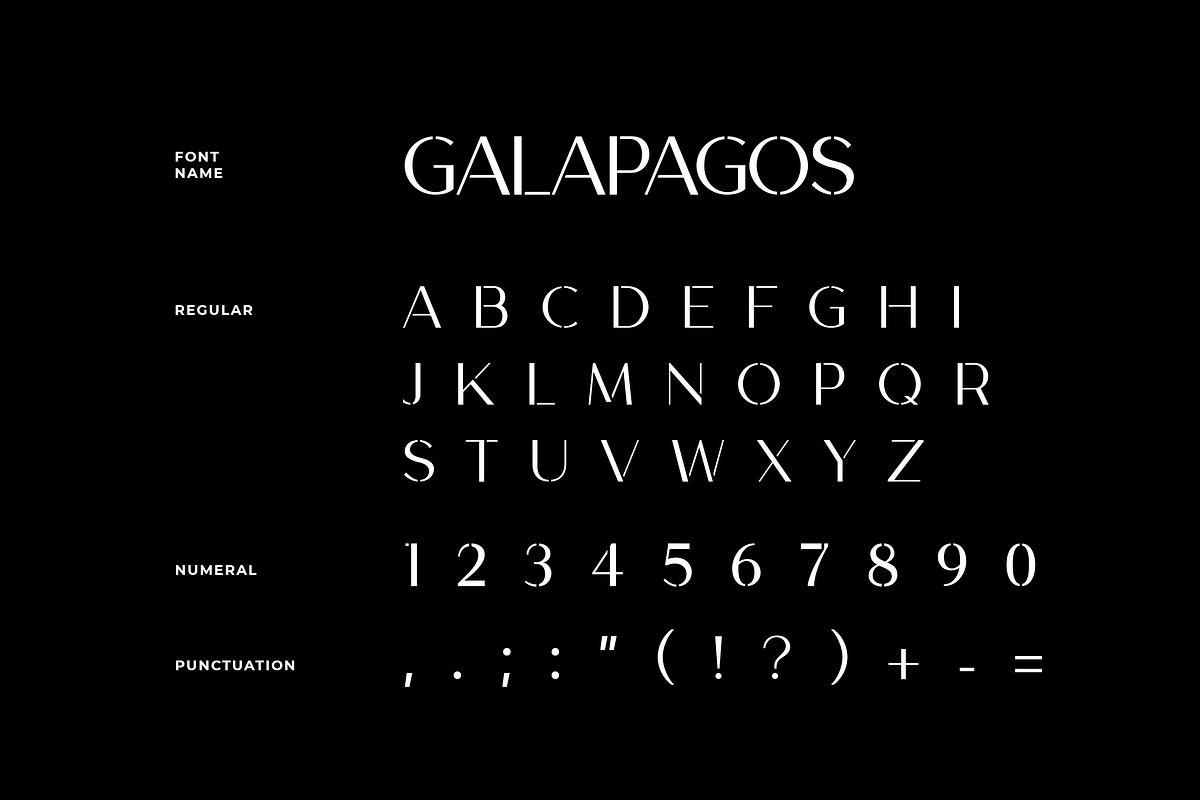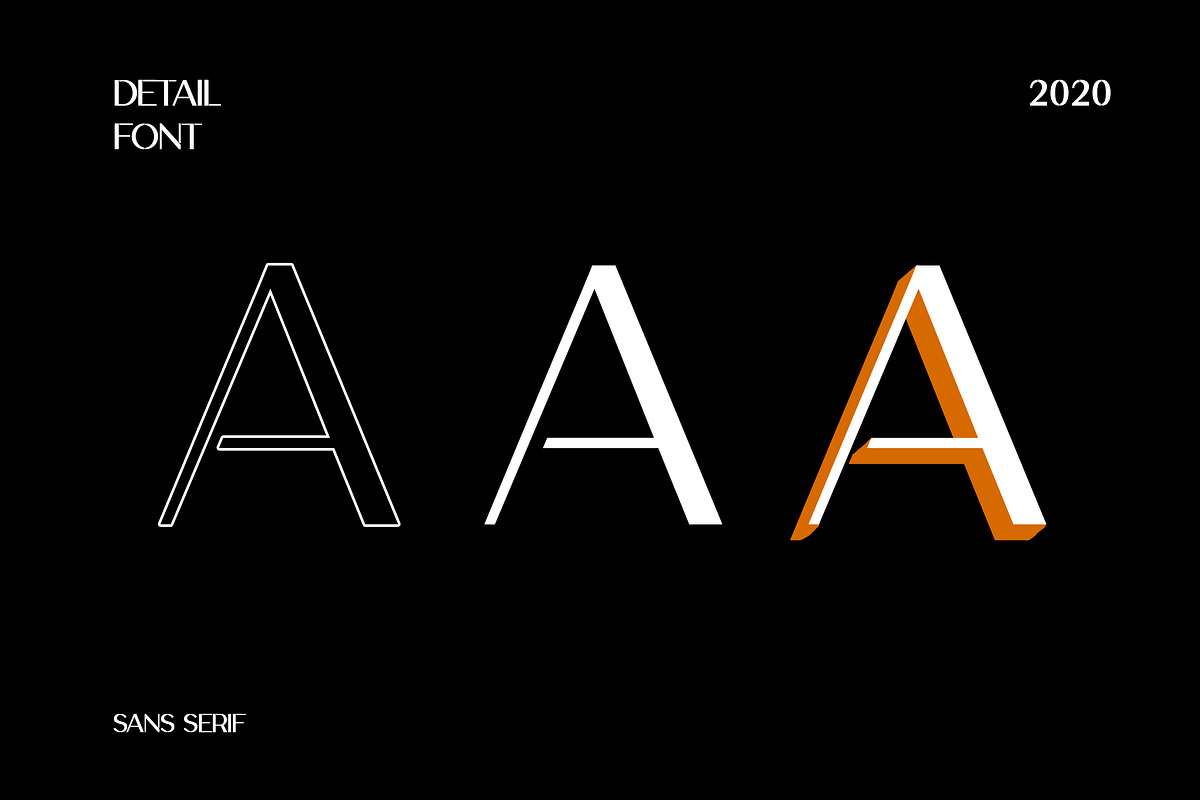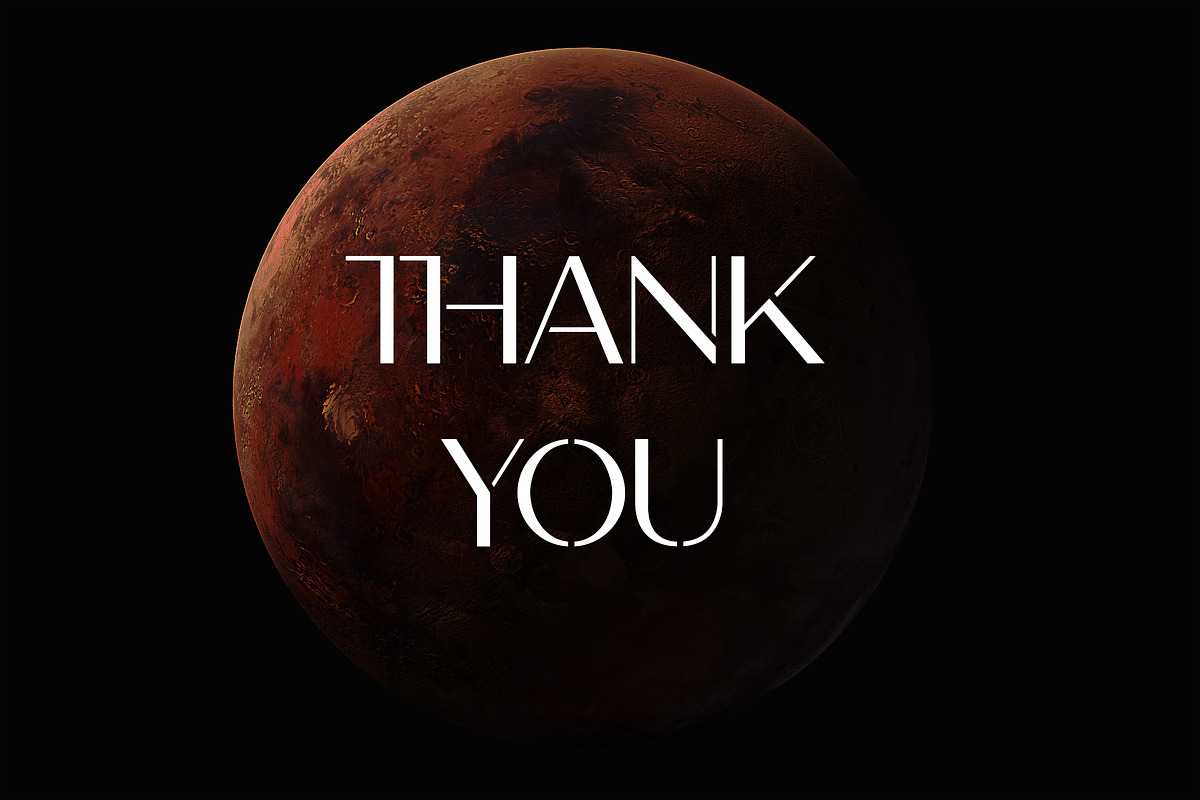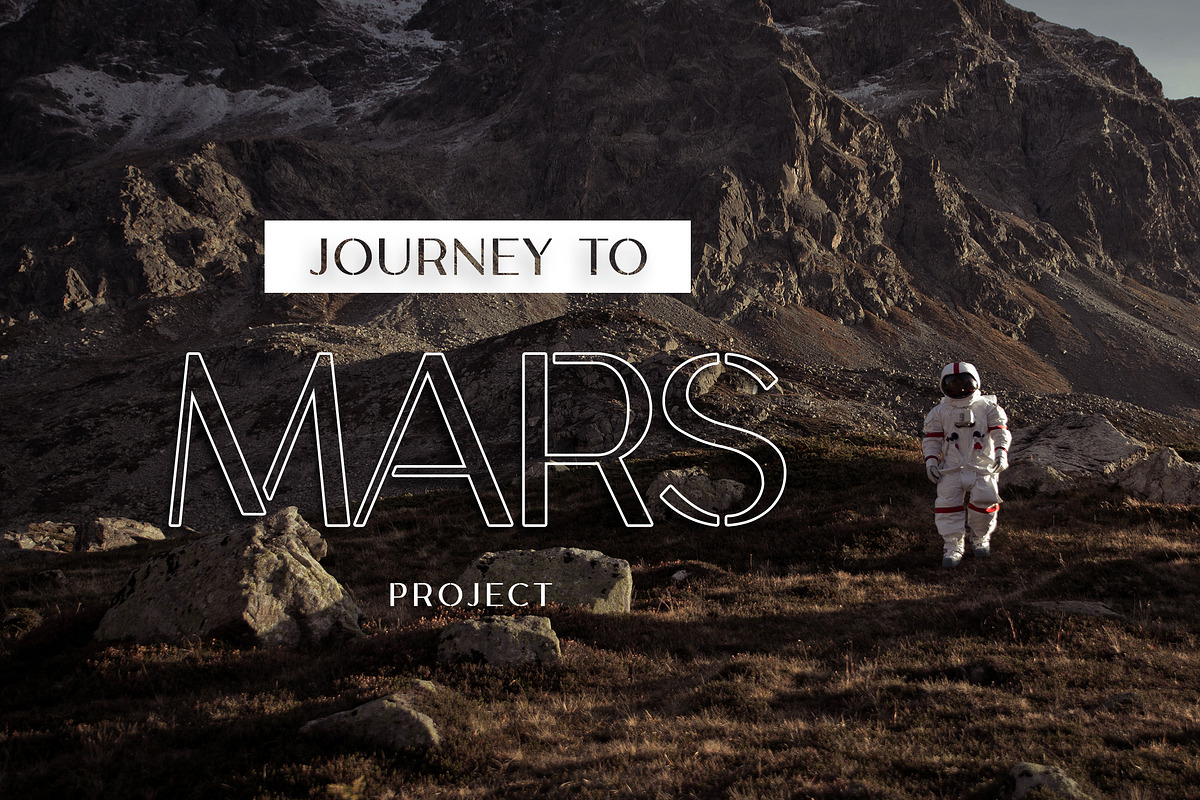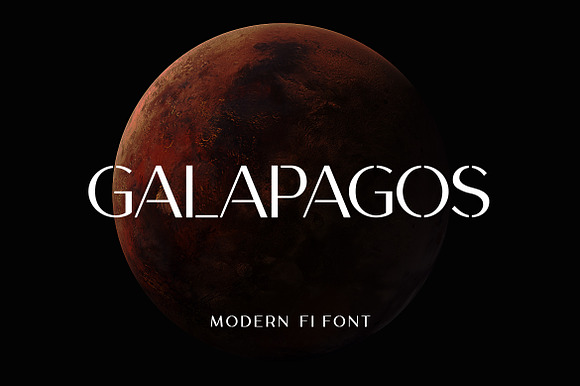
Galapagos Modern Font
Galapagos modern and futuristic Sans Serif font, inspired by sci-fi and technology, so we designed the font with a modern feel. Very playful and science-friendly well suited for branding, magazine, marketing design, technology, sci-fi design, bag, headlines, and display design pieces as well as short length text blocks.
Why Galapagos Modern Font is worth a look
Galapagos Modern Font by UICreative fits naturally into Branding, posters, packaging, typography.